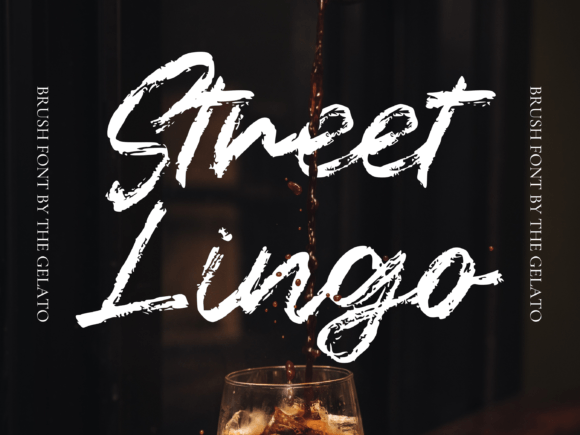
Embark on an artistic odyssey with Street Lingo Font, the captivating creation from The Gelato, the masterminds behind extraordinary digital masterpieces. This exclusive display font is an evocative symphony of bold strokes and graceful curves, a harmonious blend that captivates the eye and ignites the imagination.
Immerse yourself in the vibrant world of Street Lingo Font, where creativity knows no bounds. Its versatile nature makes it an indispensable tool for a myriad of design endeavors, from logos and titles that command attention to posters and packaging that exude an air of sophistication. Whether you seek to craft a brand identity that resonates or unleash your inner artist, Street Lingo Font empowers you to make a statement that will leave an indelible mark.
Unleash the allure of Street Lingo Font, and watch as your designs transform into captivating masterpieces. Its bold strokes dance across digital canvases, creating an undeniable visual impact that will captivate your audience. The smooth curves intertwine seamlessly, lending an air of elegance and refinement to every letterform. Together, these elements orchestrate a visual symphony that will elevate your creations to new heights of artistry.
With Street Lingo Font at your fingertips, you hold the power to evoke emotions, convey messages, and inspire imaginations. Its expressive strokes can articulate the playful spirit of a youthful brand, the timeless elegance of a classic design, or the raw energy of an urban masterpiece. The possibilities are boundless, and the only limits are those imposed by your own creativity.
Don't settle for ordinary fonts that blend into the digital landscape. Embrace the extraordinary with Street Lingo Font, and empower your designs to stand out, captivate, and leave an unforgettable impression. Join the ranks of discerning designers who recognize the transformative power of this exceptional font, and elevate your creations to the realm of the truly remarkable.